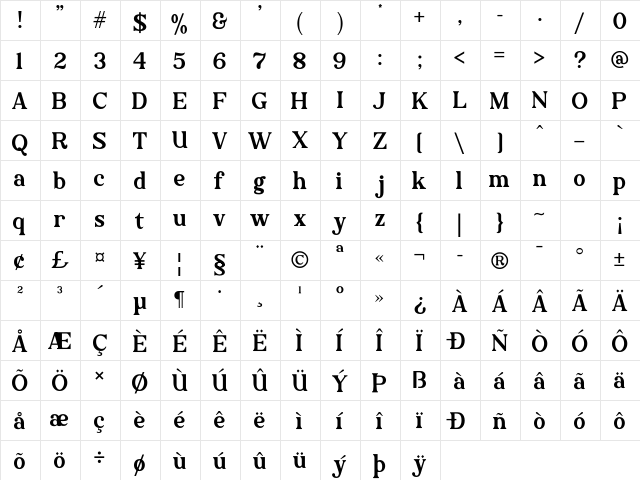
Lokey Regular
| Foundry | Kong Font |
| Designer | Kong Font |
Design Context for Lokey Typeface
Lokey offers clean, dependable letterforms without strong stylistic allegiance, making it a practical choice for designers who need flexibility.